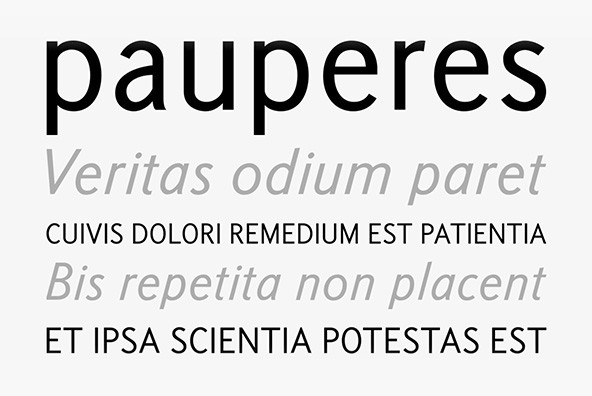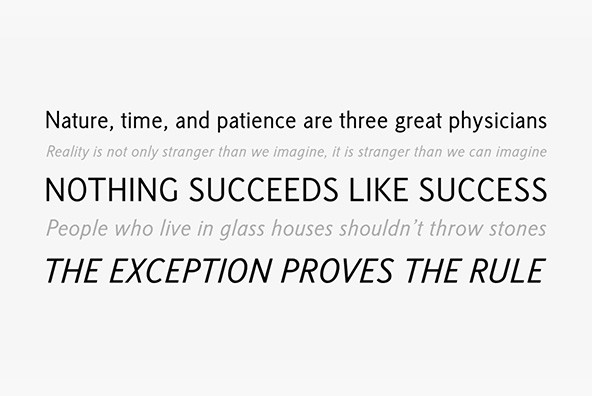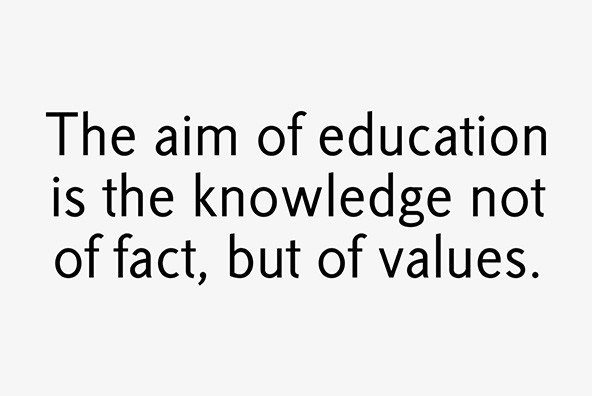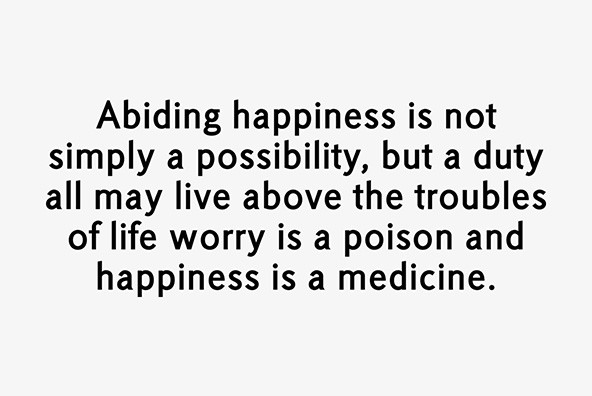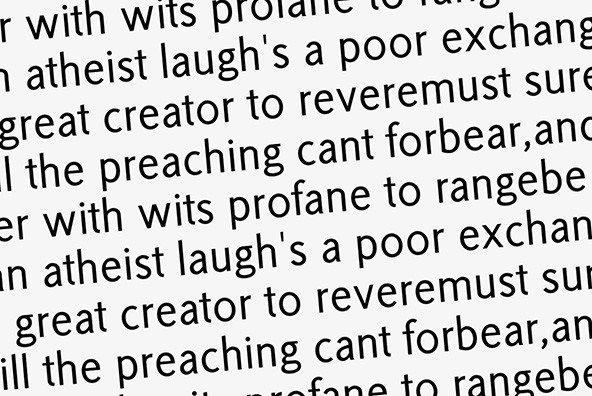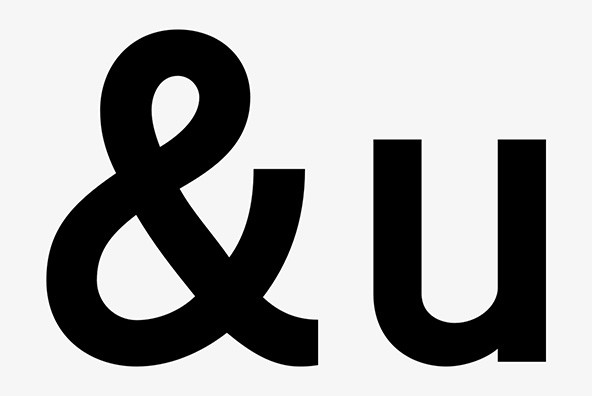
Korpus Sans Pro Font
A sans serif body text font family which covers West and East European languages as well as. Cyrillic and Greek. All styles included small caps and old style figures.